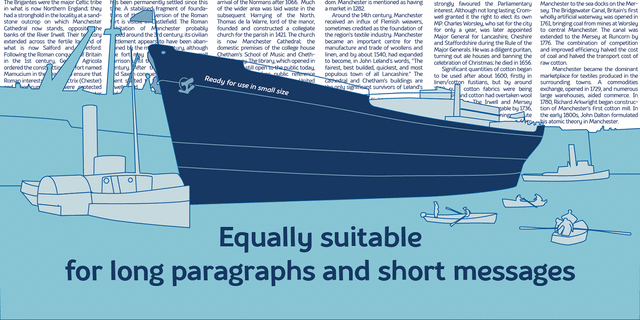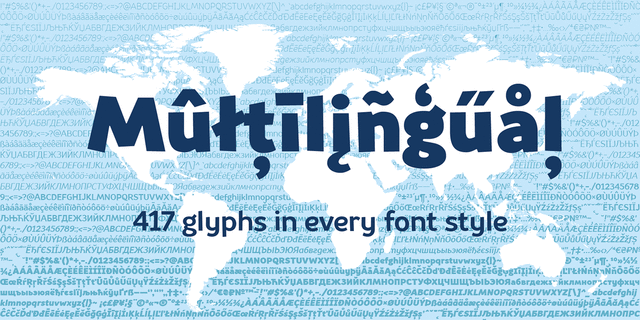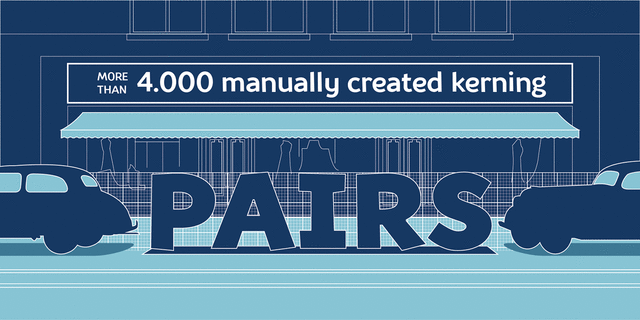
TT Souses (10 fonts)
About TT SousesSouses — original fontfamily, which are made by hand. Universal typefaces formula of 10 fonts: Thin, Light, Regular, Bold, Black and Italics. Souses ideal for use in themes: ecology, village, natural, handmade & toys. Handmade style of the fonts — an advantage that will create loyalty to your products & company. Optimized for the websites, mobile applications and printing materials. Typeface designed by Ivan Gladkikh in TypeType studio in 2014.
Features of font family TT SousesThe hit of the decade:
Associations for font family TT SousesTypeface personality and character:
minimalistic, delicate, easy, chilly, fresh, thin, laconic, urban, intimate, fragile, wire, dynamic, man-made, alive, slovenly, playful, restless, agile, simple, available, elementary, comfortable, friendly, affable, witty, confidence, informal, youth, strong, convincing, important, motivating, ripe, delicious, notable, splashy, naive, drunk, cartoonish, vernacular, solid, significant, heavy, rude, bright, active